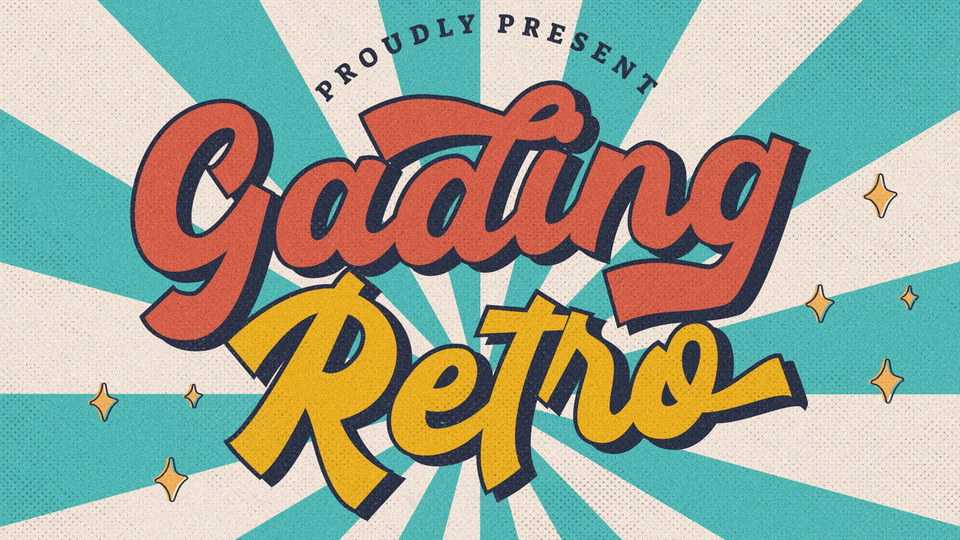
Download Gading Retro font, a bold script typeface with a vintage style that perfect for any retro design. Gading Retro is perfect for branding projects, logo, labels, badges, social media, ads, packaging and other projects.